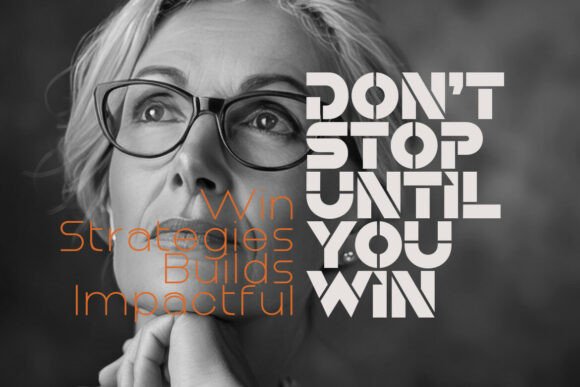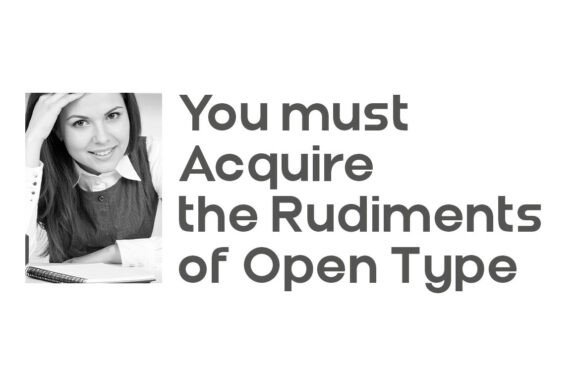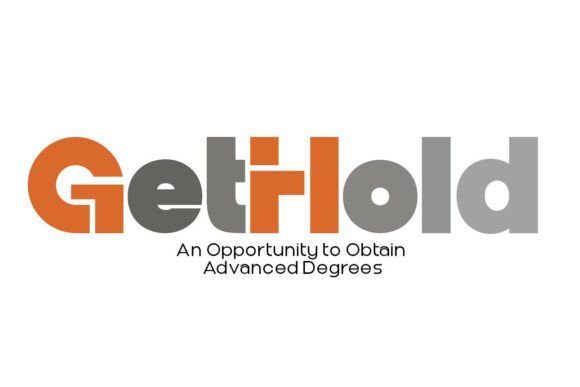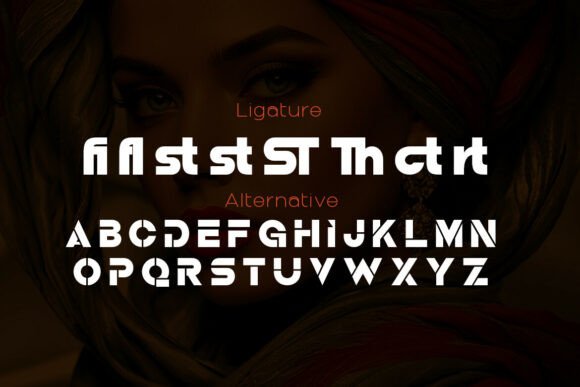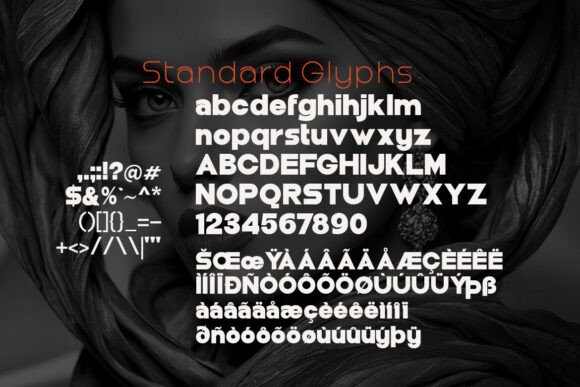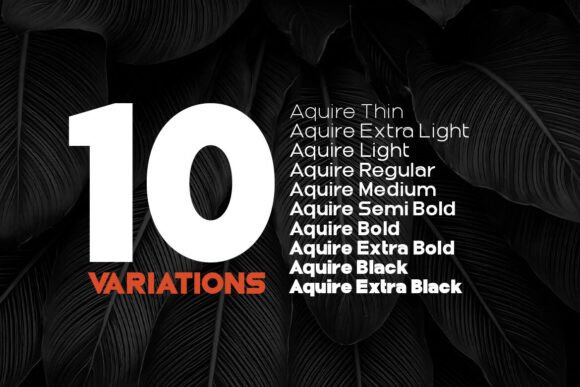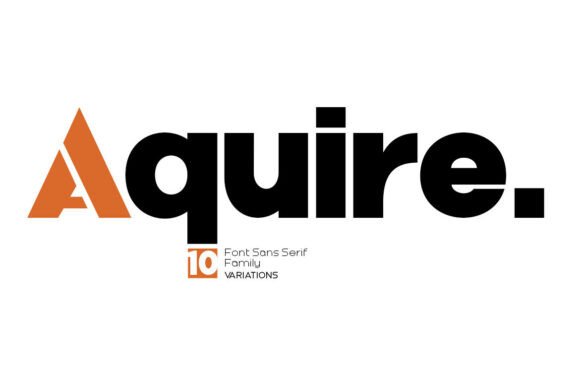
Aquire Font: Elevate Your Design with a Clean, Modern Sans Serif
In the world of typography, a font can make or break a design. Aquire, a clean, modern sans serif font family, is here to revolutionize the way you approach your creative projects. Designed with versatility, clarity, and strong visual identity in mind, Aquire is the perfect solution for designers and crafters looking to elevate their work.
What Makes Aquire Stand Out?
Aquire boasts balanced proportions and smooth geometric construction, delivering a contemporary look that works seamlessly across various applications, including branding, editorial, digital interfaces, and display typography. This font family consists of 10 carefully crafted families, offering a wide range of visual tones—from light and minimal to bold and commanding.
Each family is designed to maintain consistent character while allowing designers full flexibility when building hierarchy, contrast, and rhythm within a layout. This flexibility makes Aquire an excellent choice for a variety of design projects, from logos and headlines to posters, websites, social media graphics, UI design, packaging, and corporate branding.
Key Features of Aquire Font
- Clean and Modern Design: Aquire’s clean shapes ensure excellent readability, while its modern personality gives projects a confident and professional edge.
- Versatility: With 10 families to choose from, Aquire offers a wide range of visual tones to suit any design project.
- Consistency: Each family is carefully crafted to maintain consistent character, making it easy to build hierarchy, contrast, and rhythm within a layout.
- Excellent Readability: Aquire’s clean shapes make it perfect for body text, headlines, and display typography.
Who Can Benefit from Aquire Font?
Aquire is a reliable sans serif system made for a variety of professionals and businesses, including:
- Startups: Aquire’s modern and clean design makes it perfect for startups looking to establish a strong brand identity.
- Technology Brands: Aquire’s sleek and professional design makes it an excellent choice for technology brands looking to convey innovation and sophistication.
- Fashion Editorials: Aquire’s clean and modern design makes it perfect for fashion editorials looking to add a touch of elegance and sophistication to their content.
- Creative Studios: Aquire’s versatility and range of visual tones make it an excellent choice for creative studios looking to add a unique touch to their designs.
- Modern Businesses: Aquire’s clean and professional design makes it perfect for modern businesses looking to establish a strong brand identity.
How to Use Aquire Font in Your Design Projects
Using Aquire font in your design projects is easy. Here are a few tips to get you started:
- Pair Aquire with Other Fonts: Aquire works well with a variety of fonts, so feel free to experiment with different pairings to find the perfect combination for your project.
- Experiment with Different Weights: Aquire’s 10 families offer a range of visual tones, so experiment with different weights to find the perfect balance for your design.
- Use Aquire for Body Text and Headlines: Aquire’s clean shapes and excellent readability make it perfect for both body text and headlines.
Aquire font is a game-changer for designers and crafters looking to elevate their work. With its clean, modern design, versatility, and range of visual tones, Aquire is the perfect solution for a variety of design projects. Whether you’re a startup, technology brand, fashion editorial, creative studio, or modern business, Aquire is a reliable sans serif system that can help you establish a strong brand identity and take your designs to the next level.